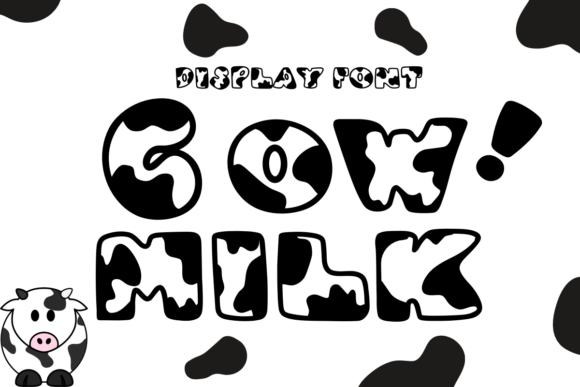
Cow Milk Font: A Playful and Quirky Display Font for Your Creative Projects
Are you looking for a unique and eye-catching font to add a touch of rural charm to your designs? Look no further than Cow Milk Font, a bold and quirky display font inspired by cow print patterns. This fun and playful font is perfect for dairy branding, farm-themed projects, kids’ merchandise, and fun signage.
What is Cow Milk Font?
Cow Milk Font is a display font that features playful black-and-white spots, reminiscent of cow print patterns. Each letter is carefully crafted to bring a dose of rural charm and graphic novelty to any layout. The font is bold, quirky, and perfect for making a statement.
Characteristics of Cow Milk Font
- Playful and Quirky: Cow Milk Font is a fun and playful font that adds a touch of whimsy to any design.
- Bold and Eye-Catching: The font is bold and eye-catching, making it perfect for headlines, titles, and signage.
- Inspired by Cow Print Patterns: The font is inspired by traditional cow print patterns, featuring black-and-white spots.
- Rural Charm: Cow Milk Font brings a dose of rural charm to any layout, making it perfect for farm-themed projects and dairy branding.
- Graphic Novelty: The font features a unique and graphic novelty that sets it apart from other fonts.
Use Cases for Cow Milk Font
Cow Milk Font is a versatile font that can be used in a variety of creative projects, including:
- Dairy Branding: The font is perfect for dairy branding, adding a touch of rural charm and whimsy to milk bottles, cartons, and other dairy products.
- Farm-Themed Projects: Cow Milk Font is ideal for farm-themed projects, such as farm signs, animal feed packaging, and agricultural advertising.
- Kids’ Merchandise: The font is perfect for kids’ merchandise, such as toys, clothing, and accessories.
- Fun Signage: Cow Milk Font is great for fun signage, such as billboards, posters, and flyers.
Benefits of Using Cow Milk Font
Using Cow Milk Font in your creative projects offers a range of benefits, including:
- Unique and Eye-Catching: The font is unique and eye-catching, making it perfect for grabbing attention.
- Playful and Whimsical: Cow Milk Font adds a touch of playfulness and whimsy to any design.
- Rural Charm: The font brings a dose of rural charm to any layout, making it perfect for farm-themed projects and dairy branding.
- Graphic Novelty: The font features a unique and graphic novelty that sets it apart from other fonts.
Tips for Using Cow Milk Font
Here are some tips for using Cow Milk Font in your creative projects:
- Use it as a Headline Font: Cow Milk Font is perfect for headlines and titles, adding a touch of playfulness and whimsy.
- Pair it with a Simple Font: Pair Cow Milk Font with a simple font to create contrast and add visual interest.
- Experiment with Colors: Experiment with different colors to find the perfect combination that works with your design.
- Use it in Combination with Images: Use Cow Milk Font in combination with images to add a touch of rural charm and graphic novelty.
Cow Milk Font is a bold and quirky display font inspired by cow print patterns. With its playful black-and-white spots, it’s perfect for dairy branding, farm-themed projects, kids’ merchandise, and fun signage. The font brings a dose of rural charm and graphic novelty to any layout, making it a great addition to any creative project.